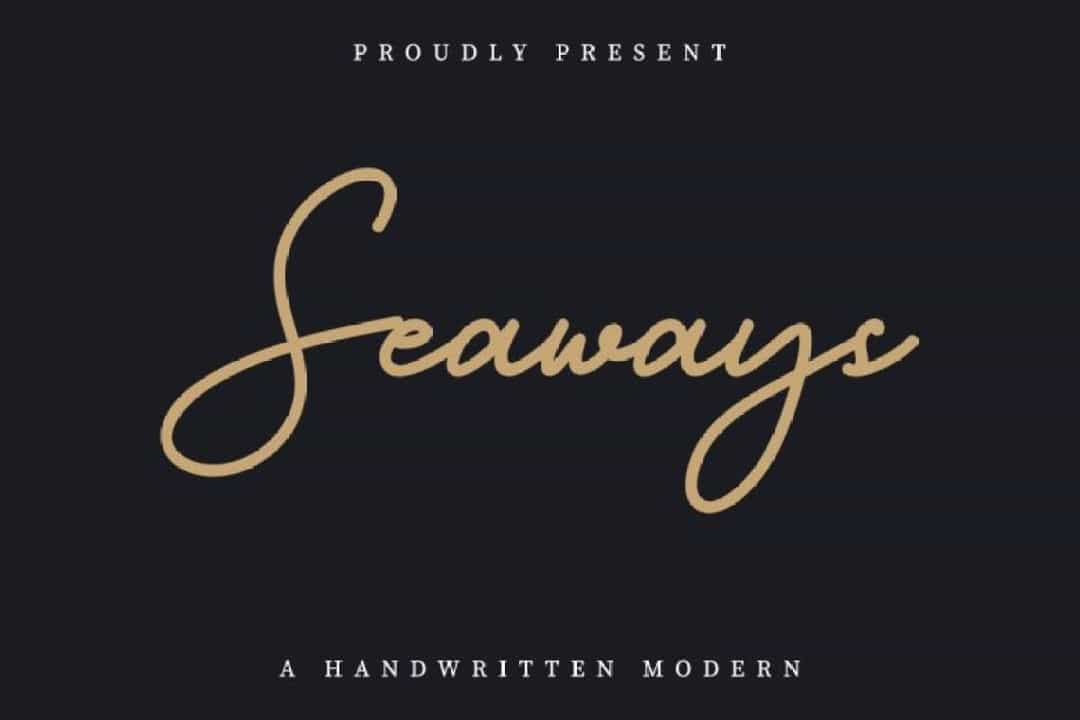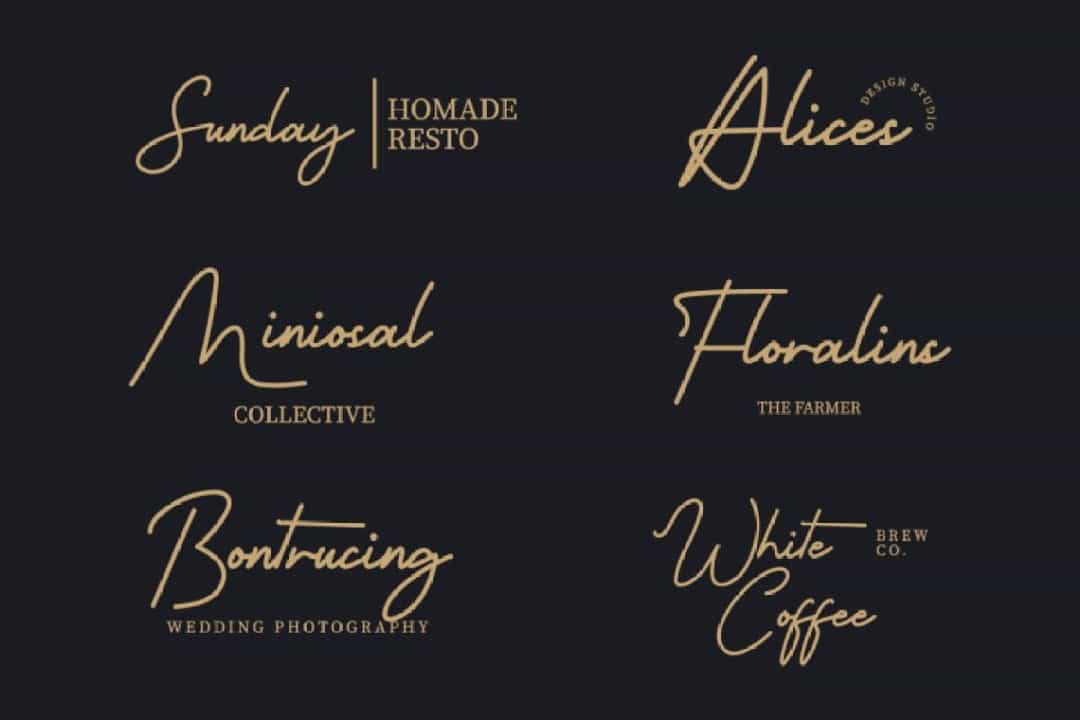
Seaways is a beautiful handwritten script font and is not similar to any other typeface in the market. This superb font features beautiful characters which are well kerned for the purpose of having close and tight kerning and spacing between characters to give it a contemporary as well as traditional look in one font. Classy, beautiful and very versatile; Seaways will be a must-have font in your library.